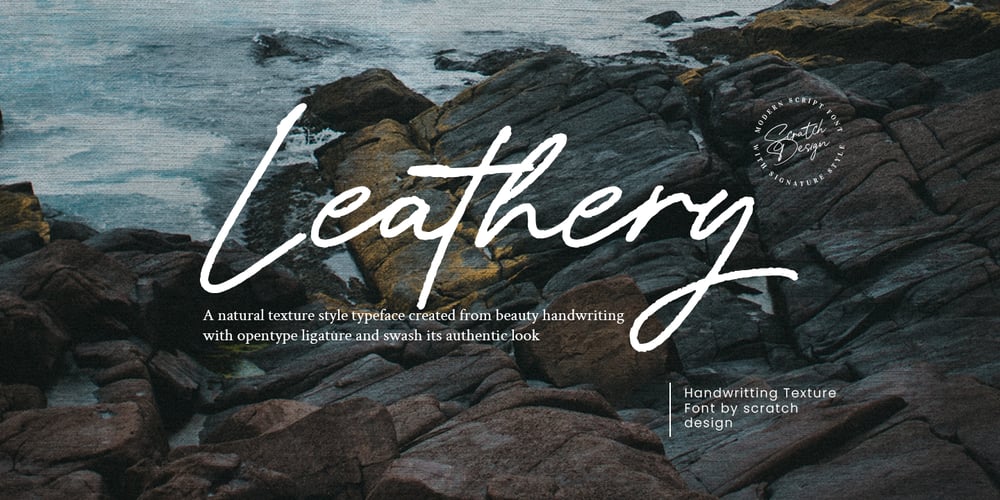
Leathery
Leathery font
Leathery Font Family was designed by Gitayogi Irhandi and published by Scratch Design. Leathery contains 1 styles and family package options. Introducing Leathery! It’s a modern script font with a signature-style look and ballpoint texture effects. It’s very recommended for you who want to make some designs with natural handwriting using a ballpoint. leathery will work for name card design, invitation design, wedding design, posters, packaging, book cover title, quote, social media post, etc.Features: Ligatures Numerals & PunctuationSwashesAccented characters Format File: OTF, Web Multiple Languages SupportedHow to use this font: Just open your Opentype features ( Minimum Compatible with Adobe Photoshop CS 6 and Adobe Illustrator CS 6 ) in Adobe Photoshop go to Window – Glyphs and all the alternates will appear while using the script font to use the ligatures and swashes. As you type, your text will look like a natural signature or handwriting.